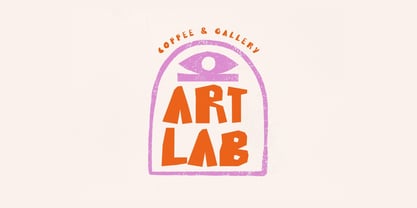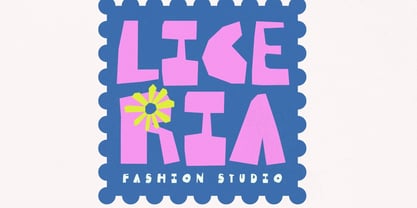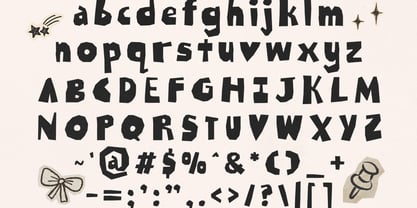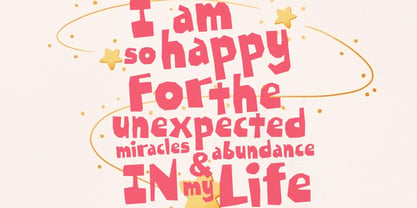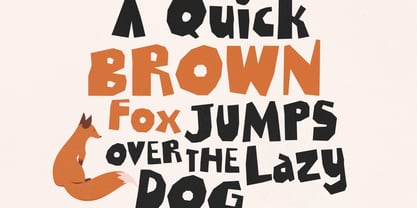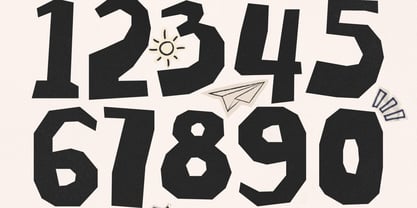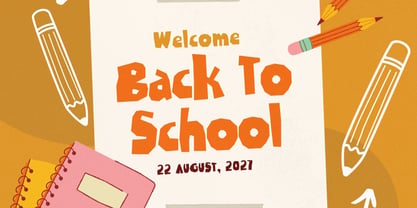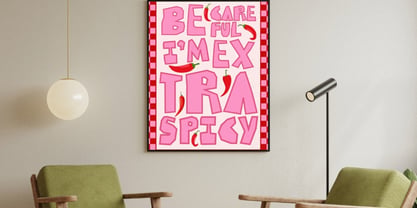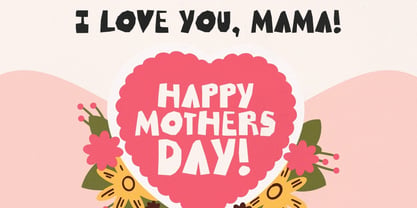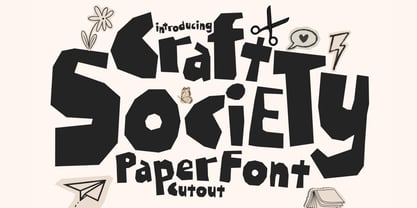
Craft Society
by Hipfonts
The Craft Society Font Family was designed by Igor Ovsyannykov and published by Hipfonts. Craft Society contains 1 styles.
Introducing Craft Society, a striking paper cutout typeface infused with raw creativity, urban edge, and handcrafted energy. Designed to feel like each letter was physically cut, torn, and assembled by hand, this font delivers a bold artistic presence that instantly stands out. Craft Society embraces imperfection in the most expressive way. Its irregular edges, sharp cuts, and layered forms create a dynamic visual texture that feels authentic, spontaneous, and full of attitude. Every character looks like a piece of art — giving your typography a DIY spirit with a modern, rebellious twist. With its bold papercut style and artsy personality, Craft Society is perfect for designers who want to push boundaries and create work that feels experimental, edgy, and visually impactful. It captures the essence of contemporary art culture, blending street-style aesthetics with handcrafted charm. Whether you're designing for editorial layouts or bold branding, this typeface brings a fearless creative energy to every project.